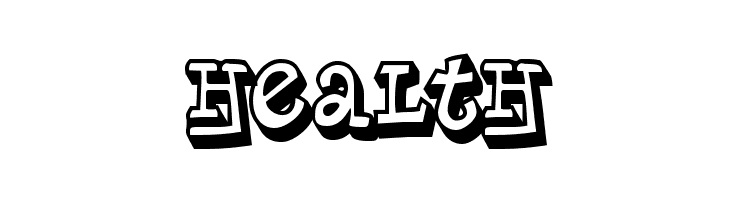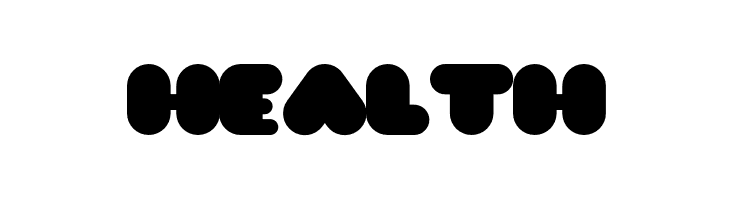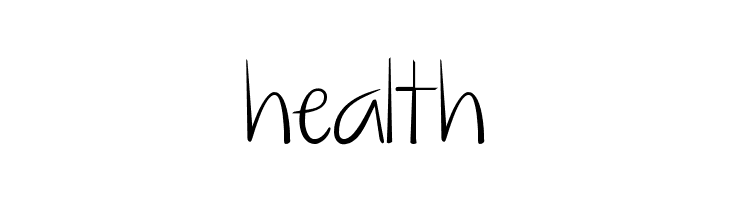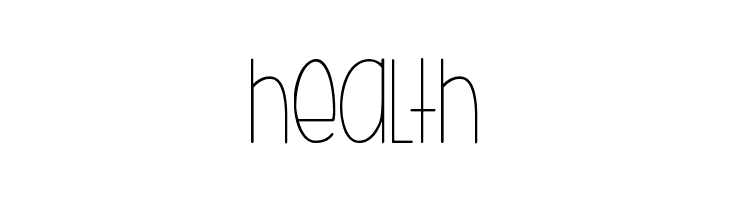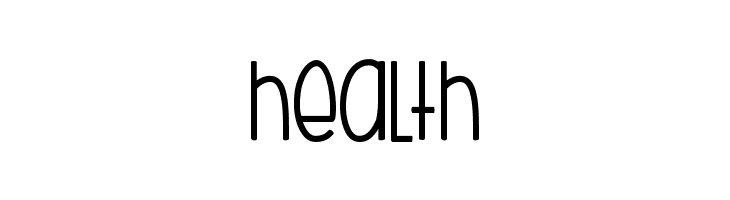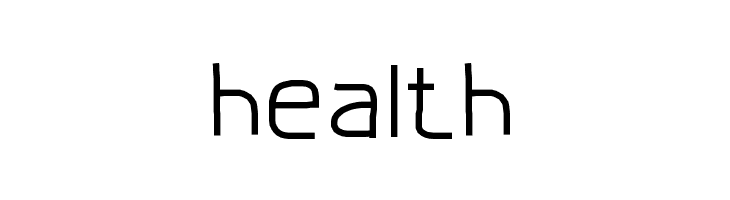
A bold, graffiti-inspired font with a playful, three-dimensional style.
A bold, rounded font with a playful and modern style.
A playful, hand-drawn font with tall, narrow letterforms and whimsical strokes.
A playful, monoline font with tall, narrow characters and a hand-drawn feel.
A playful, rounded font with smooth curves and a condensed appearance.
A clean, rounded font with even spacing and subtle stroke variations.